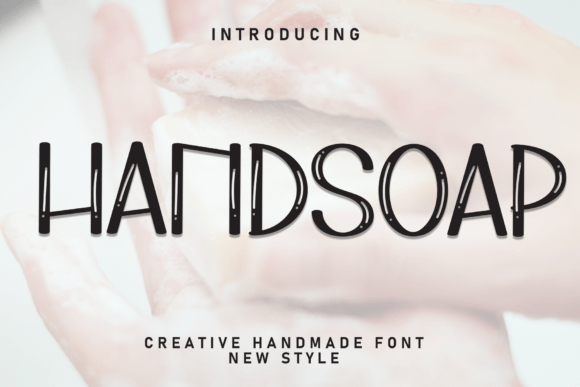
Discover the Joy of Handwritten Charm
Do you remember the excitement of rummaging through your grandmother’s old trunk, unearthing a treasure trove of handwritten letters and cards? The way her script danced across the page, imbuing each word with love and care, left an indelible mark on your heart. That’s the magic of handwritten letters, and now, you can capture that essence in your designs with the lovable Handsoap Font.
This delightful display font is perfect for adding a touch of whimsy and personality to your projects. Whether you’re crafting a wedding invitation, designing a heartfelt birthday card, or simply want to inject some fun into your digital creations, Handsoap Font is the perfect companion. Its playful charm will make your designs stand out and leave a lasting impression on your audience.
Handsoap Font Key Features
- Font Family: Handsoap Font is a unique, hand-drawn sans-serif font family designed for use in various digital and print applications.
- Character Set: The font family includes a wide range of characters, including Latin, Cyrillic, and Greek alphabets, as well as punctuation marks and symbols.
- Unique Characteristics: Handsoap Font features a distinctive, hand-drawn aesthetic with subtle imperfections and texture, giving it a unique and organic feel.
Handsoap Font Review
Overall, I was excited to dive into the Handsoap Font and see what it had to offer. While it has some lovely qualities, there are also some limitations that might make it less appealing to certain designers.
- Soft, rounded shapes that evoke a sense of warmth and approachability
- Beautifully crafted letterforms that are perfect for use in logos, branding, and other applications where a friendly, human touch is desired
- Excellent legibility, even at smaller font sizes
- Lack of versatility – the font is quite specific in its aesthetic and might not be suitable for more modern or edgy designs
- Not ideal for use in large blocks of text, as the rounded shapes can make it difficult to distinguish between different lines of text
- No bold or italic weights available, which can limit its use in certain applications
Overall, I think Handsoap Font is a lovely addition to any designer’s toolkit, but it’s not a one-size-fits-all solution. It’s perfect for projects where a warm, friendly tone is desired, but might not be the best choice for more formal or modern designs.
Tips for Getting the Most Out of Handsoap Font
Here are some tips to get the most out of the Handsoap Font:
- Use the Handsoap Font for creative and playful designs.
- Pair the Handsoap Font with other creative fonts for a unique look.
- Experiment with different font sizes and colors to add visual interest.
Here are some common use cases for the Handsoap Font:
- Children’s book illustrations and design.
- Creative marketing materials and advertisements.
- Personalized gifts and stationery.
Can I customize the Handsoap Font for my specific design project?
Yes, the Handsoap Font is a highly customizable font with multiple OpenType features, including ligatures, swashes, and stylistic sets. You can access these features through your design software, allowing you to create unique and personalized typography for your project.